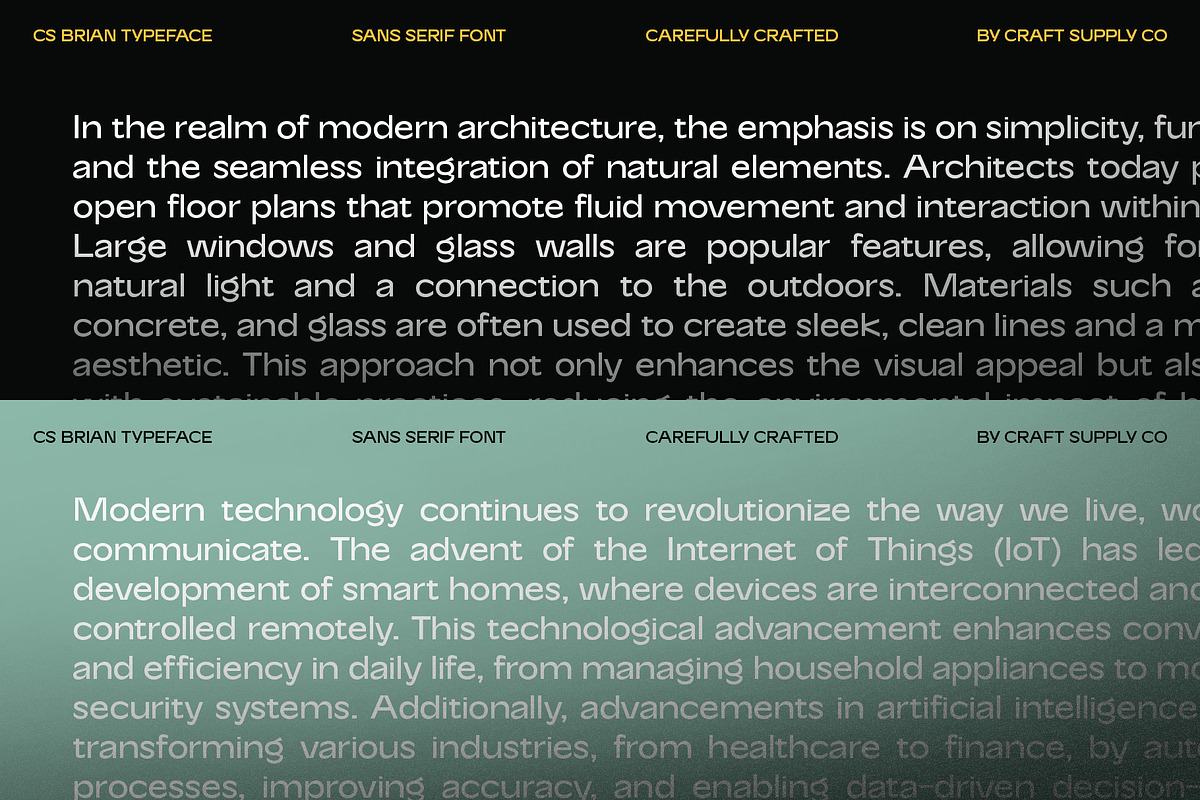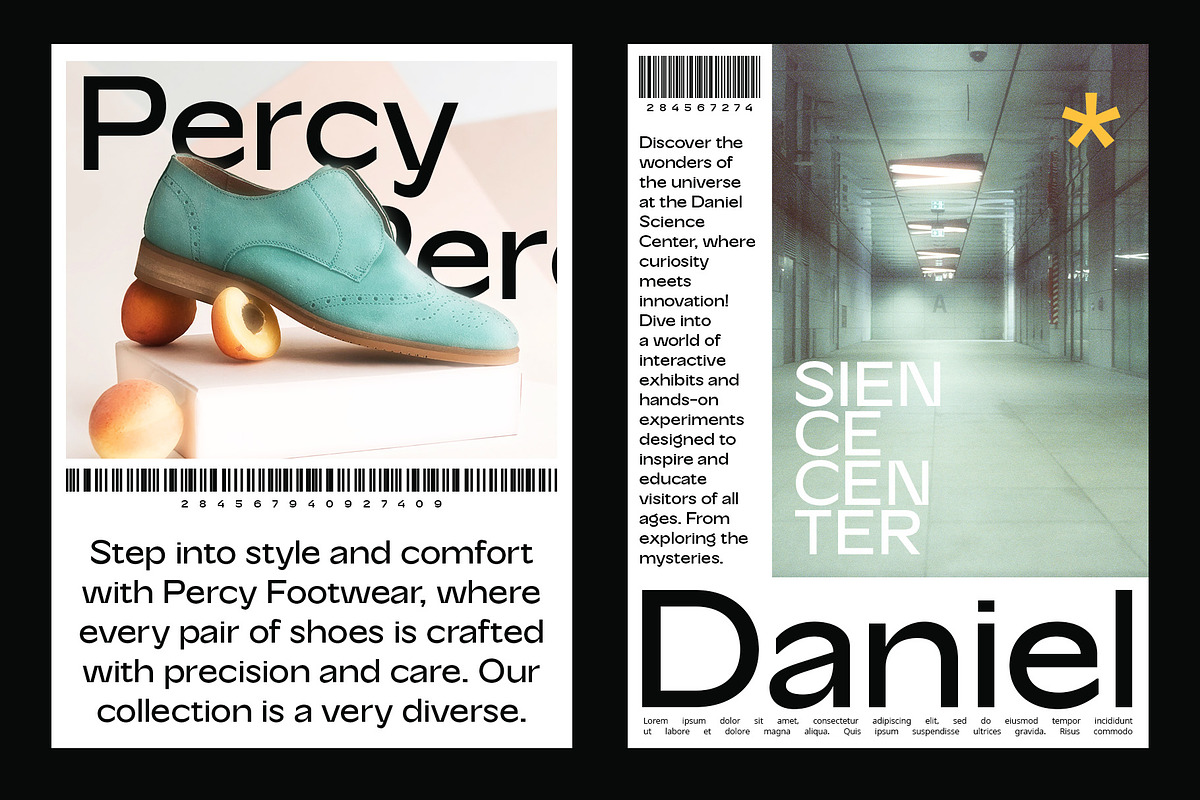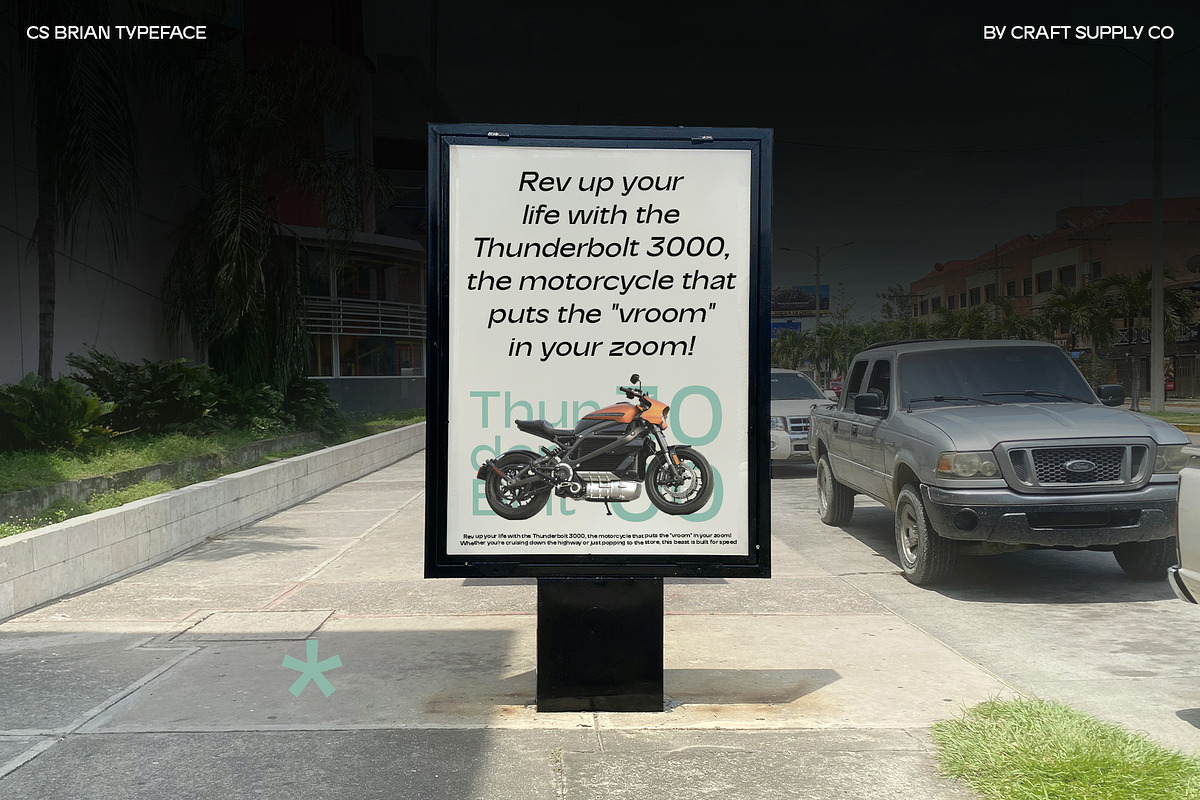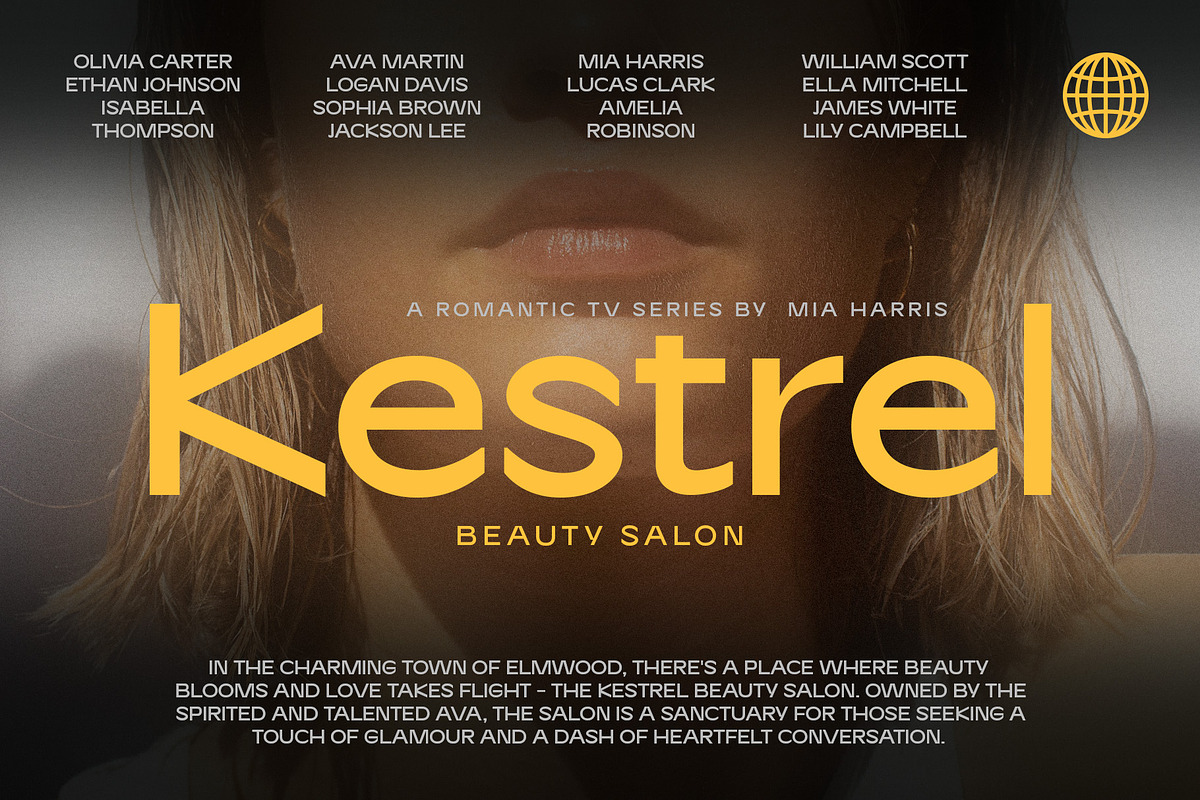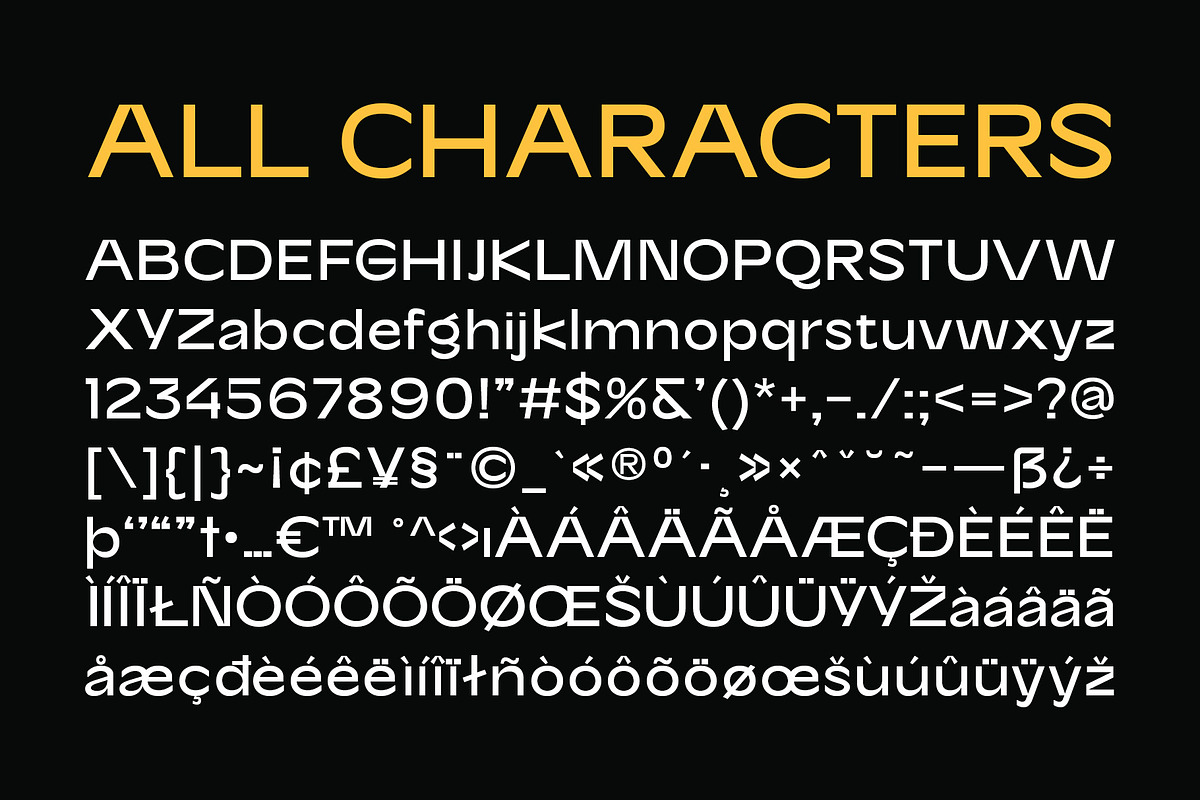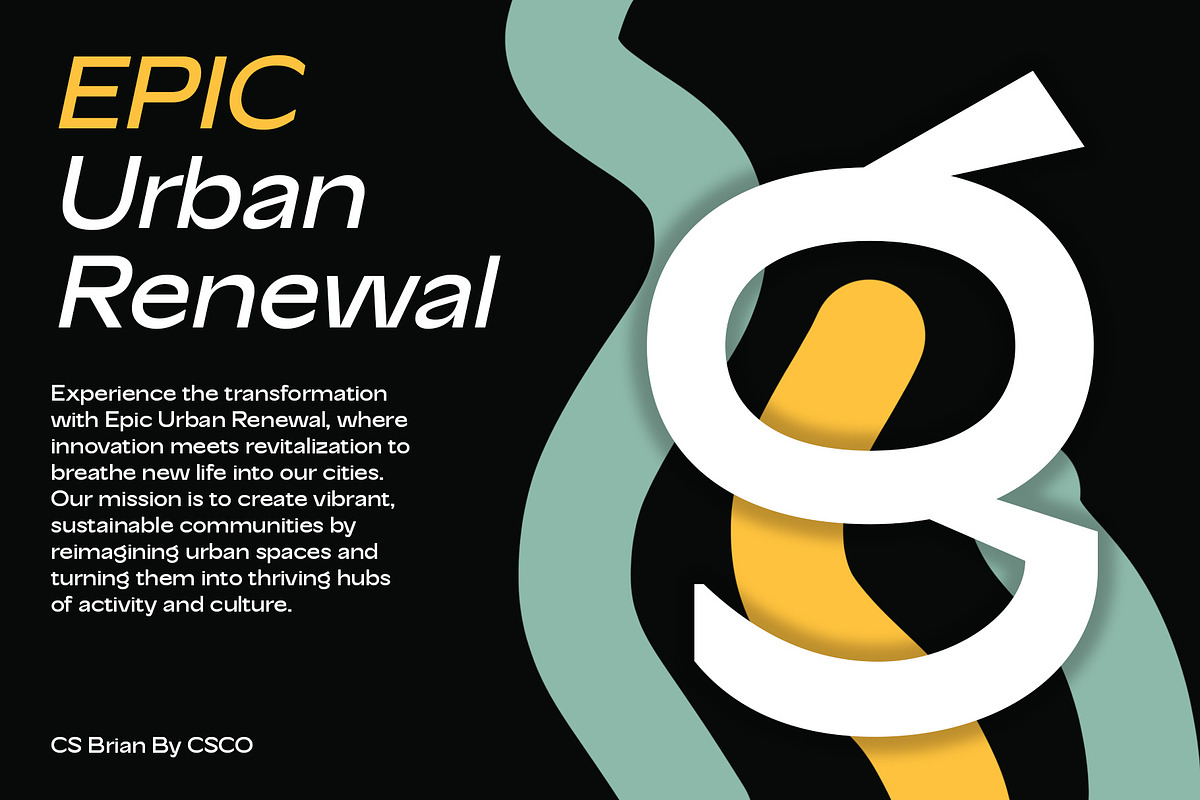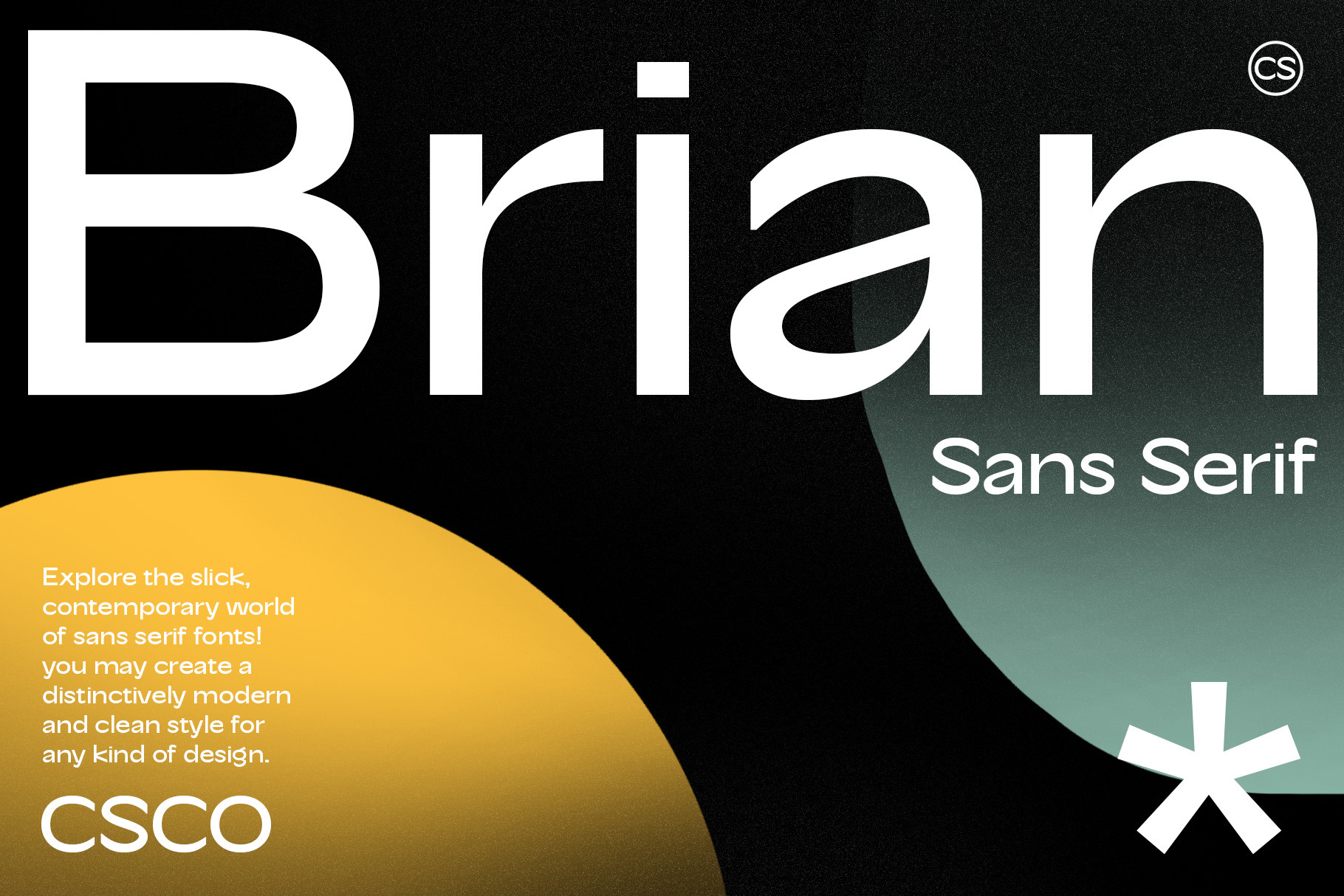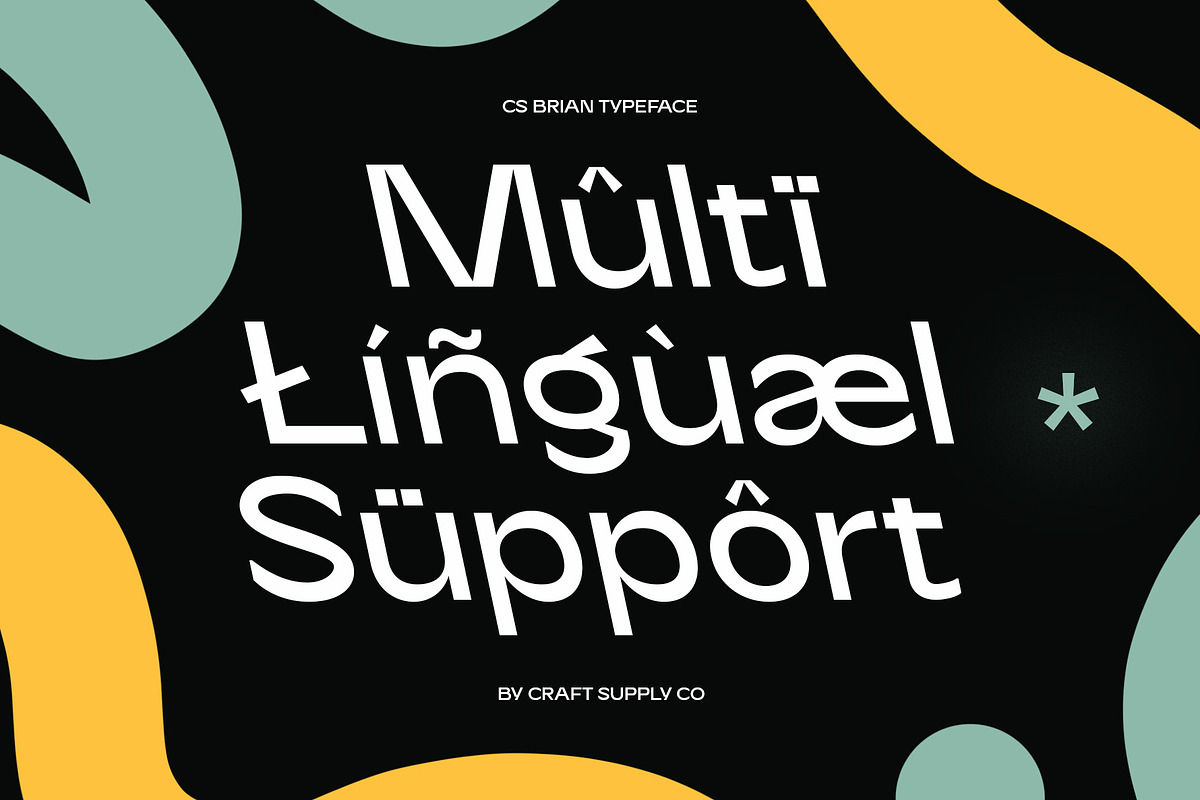
CS Brian – Contemporary Font
CS Brian: Contemporary Sans-Serif Font
Clean and Engaging Professionalism
CS Brian is a modern sans-serif font that embodies contemporary design with its clean lines and engaging shape. Tailored for professional use, this font offers a simple yet sophisticated appearance that is ideal for a variety of applications, including logo design, business documents, corporate websites, and promotional materials.
Sleek Sans-Serif Design
The sleek design of CS Brian ensures clarity and readability across different mediums. Its modern shape enhances visual appeal while maintaining a professional demeanor, making it suitable for conveying a clean and polished image in corporate and business contexts.
Versatile for Professional Projects
Perfect for logo design where simplicity and clarity are essential, CS Brian also excels in business documents and corporate websites seeking a modern aesthetic. Its engaging appearance makes it a versatile choice for promotional materials aimed at presenting a professional and contemporary image.
Enhance Your Professional Presence
Choose CS Brian to enhance your professional presence with a contemporary sans-serif font that combines simplicity with engaging design elements. Whether used digitally or in print, this font ensures your designs maintain a modern and clean impression that resonates with professionalism and clarity.
- CS Brian Regular
- CS Brian Italic
- CS Brian Reverse Italic